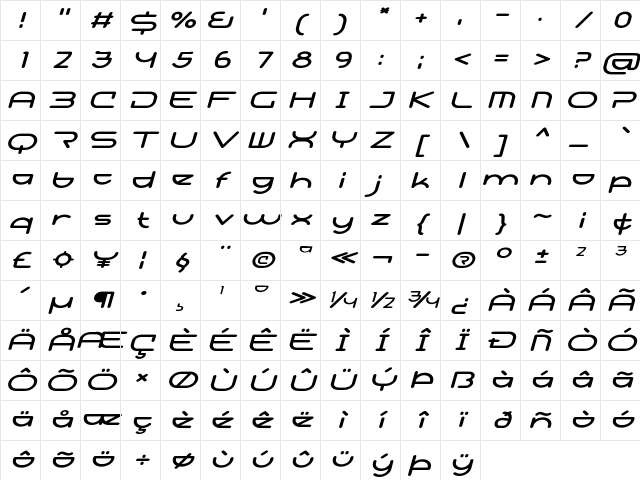
Adura Expanded Italic Free Font
Adura Expanded Italic
Style: Expanded Italic
Adura Family
Adura Expanded Italic
Design Context for Adura
Adura is a composed and adaptable typeface that performs quietly and consistently across a wide range of design contexts. The slanted form adds forward momentum and visual energy.